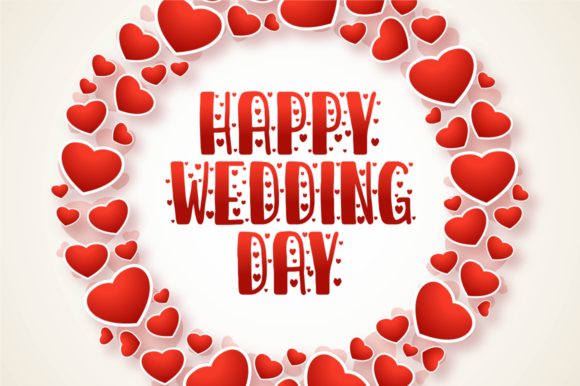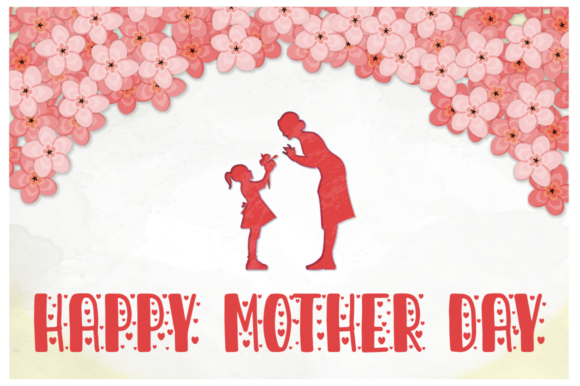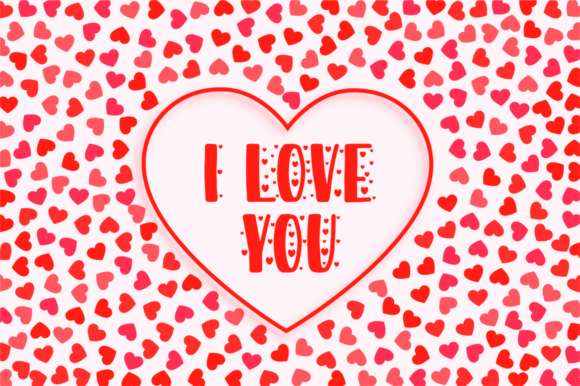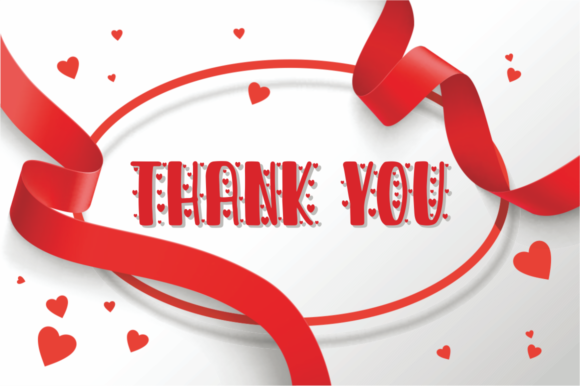
Introduction to Love Larry Font
Love Larry embodies fun, quirkiness and authenticity.
This enchanting handwritten font will turn any creative idea into a true standout .